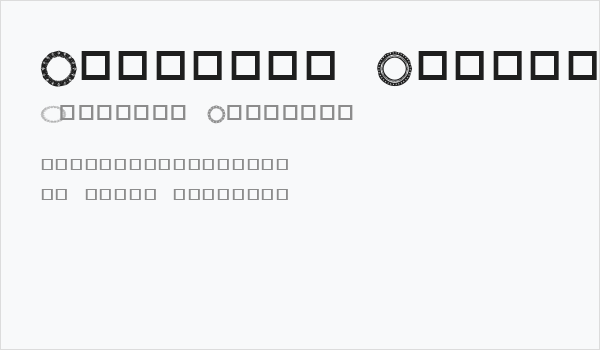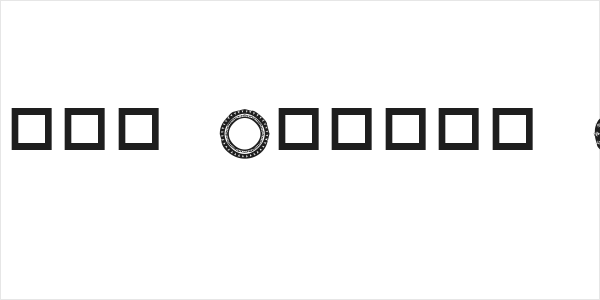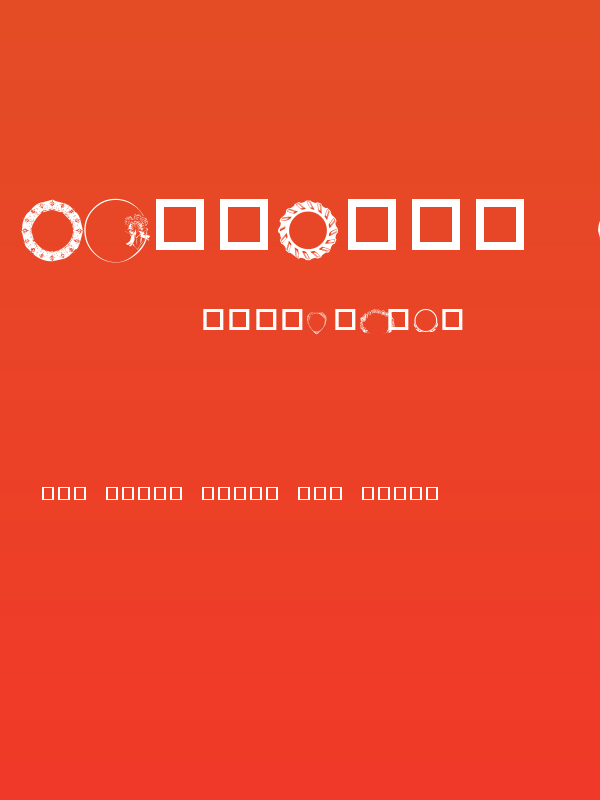
Destinys Border Dings Font
Destinys Border Dings Description
This is a decorative font featuring a series of intricate border designs. Each character is represented by a unique circular or square border pattern, showcasing detailed and ornate elements. The designs range from floral motifs to geometric shapes, providing a diverse collection of borders suitable for various creative projects. The font is primarily intended for decorative purposes, offering a visually appealing way to frame text or images. Its artistic style makes it ideal for use in invitations, certificates, or any design that requires an elegant touch.
| Use Case | Logos, Invitations, Decorative Framing |
| Proposed Projects | Ideal for invitations, certificates, scrapbooking, and decorative framing in graphic design. |